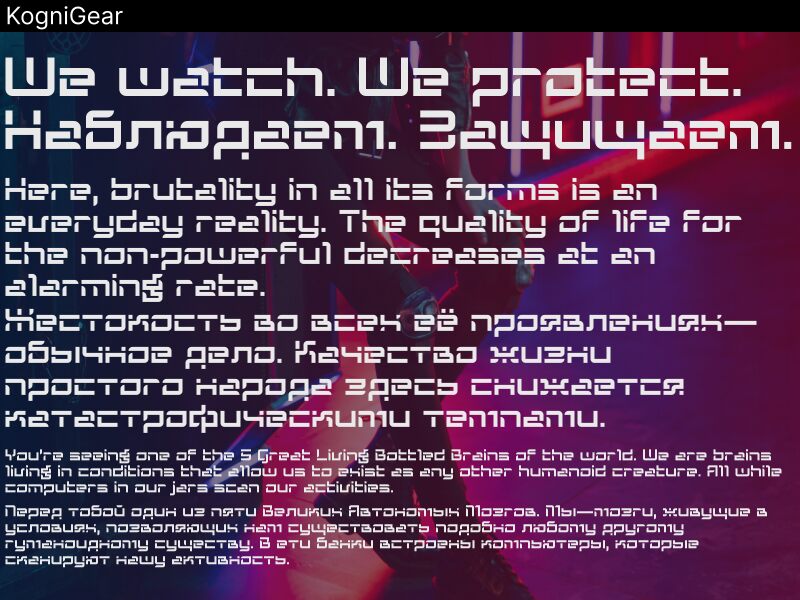
KogniGear, designed by Haley Wakamatsu of UkiyoMoji Fonts, is a captivating display font that exudes a distinct techno-futuristic aesthetic. With its expanded, geometric forms and sharp, angular lines, this font immediately commands attention, evoking a sense of modernity and technological prowess. The bold, distinct letterforms create a strong, impactful visual presence, making KogniGear an ideal choice for a wide range of design applications.
This versatile font excels in projects requiring a visually striking, futuristic-inspired look, such as branding for tech startups, event promotions, or product packaging. Its expanded width lends itself particularly well to headings, logotypes, and display text, where its commanding presence can truly shine. Versatile and adaptable, KogniGear's unique style seamlessly integrates with both contemporary and forward-thinking design concepts, making it a valuable addition to any designer's toolkit.